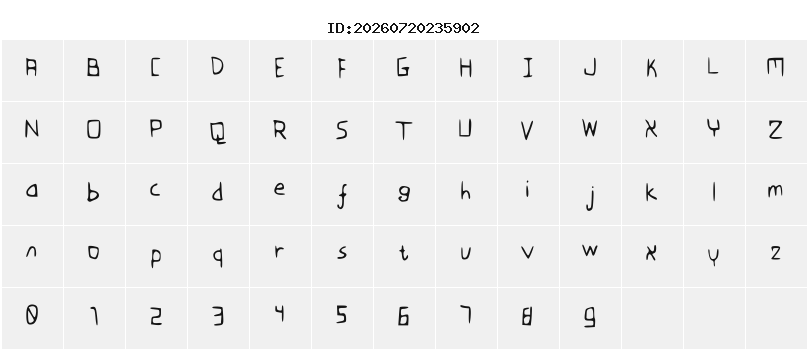
Flovio Preview
• Font Name: Flovio
• Full Font Name: Flovio
About Flovio.ttf
Flovio.ttf is a modern, elegant sans-serif font designed for ultimate readability and visual harmony. Perfect for branding, headlines, web design, and print materials.